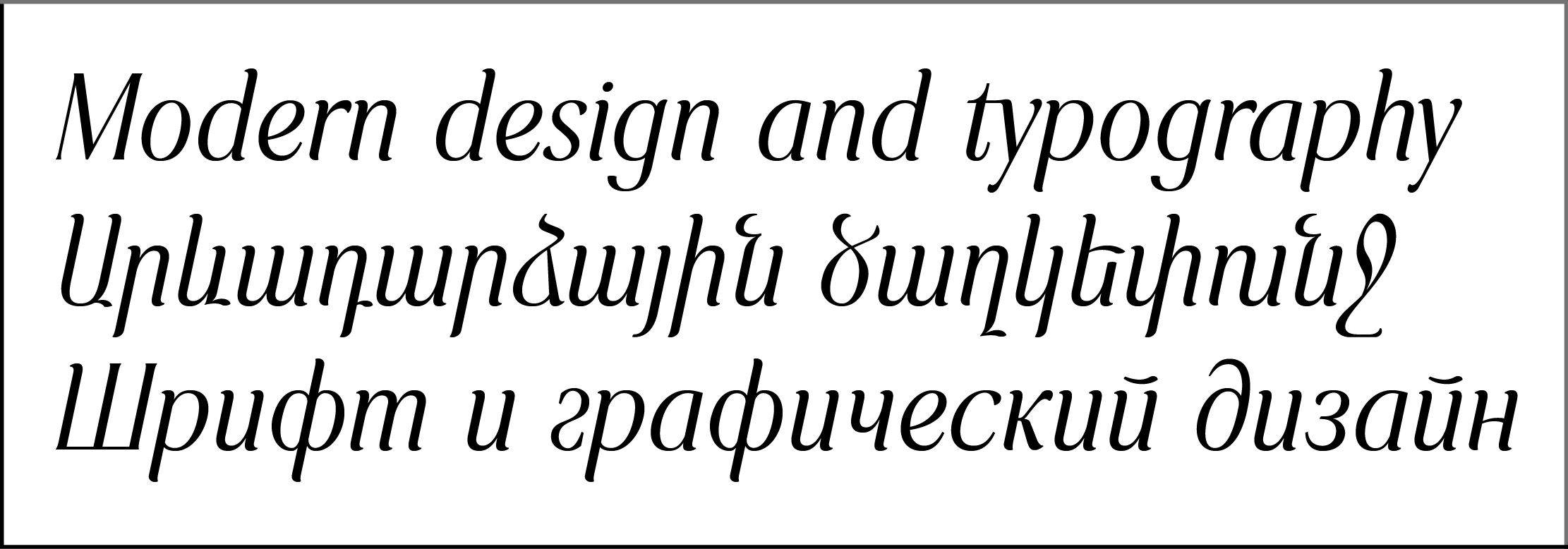
GHEA Vtar
GHEA Vtar is a Display font for using in titles, posters and advertisements.
It included Armenian, Cyrillic and Latin Central European language systems.
The font includes Basic and many Advanced Ligatures for Latin and Armenian.
GHEA Vtar  looks very nice over 12 pt sizes.